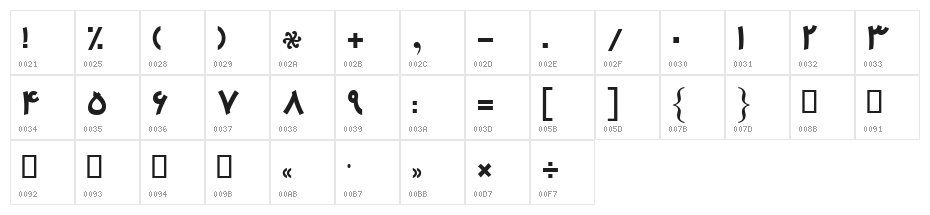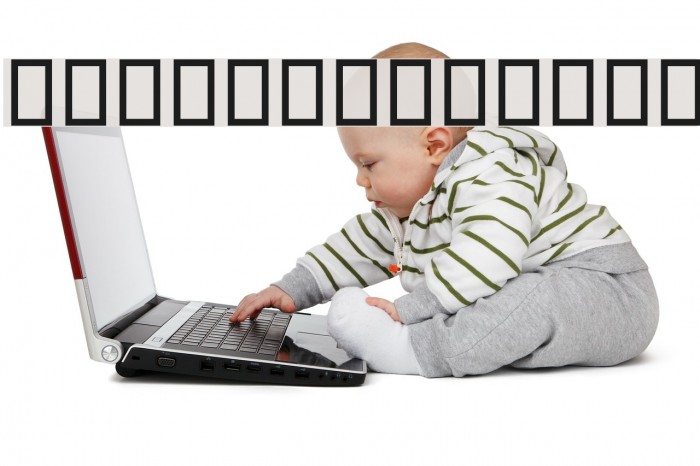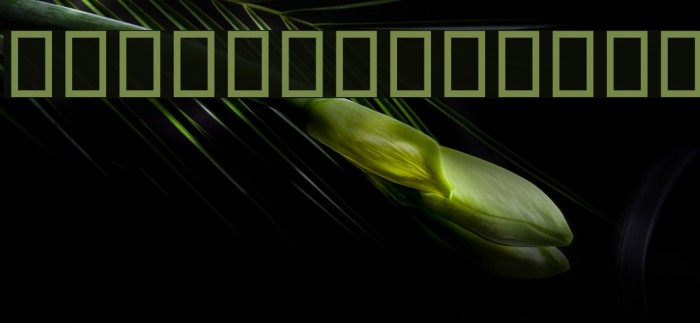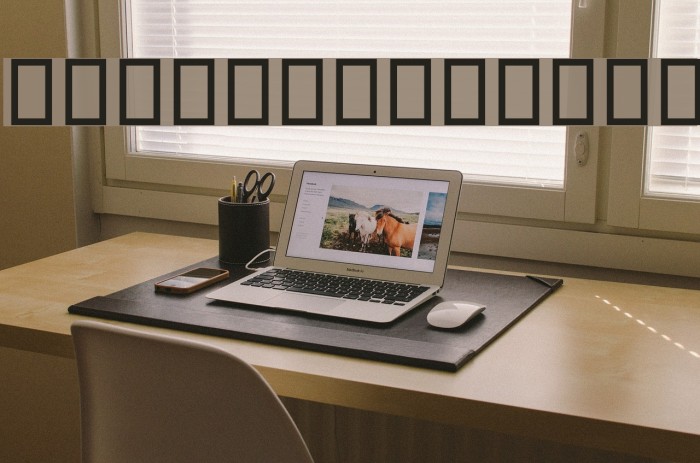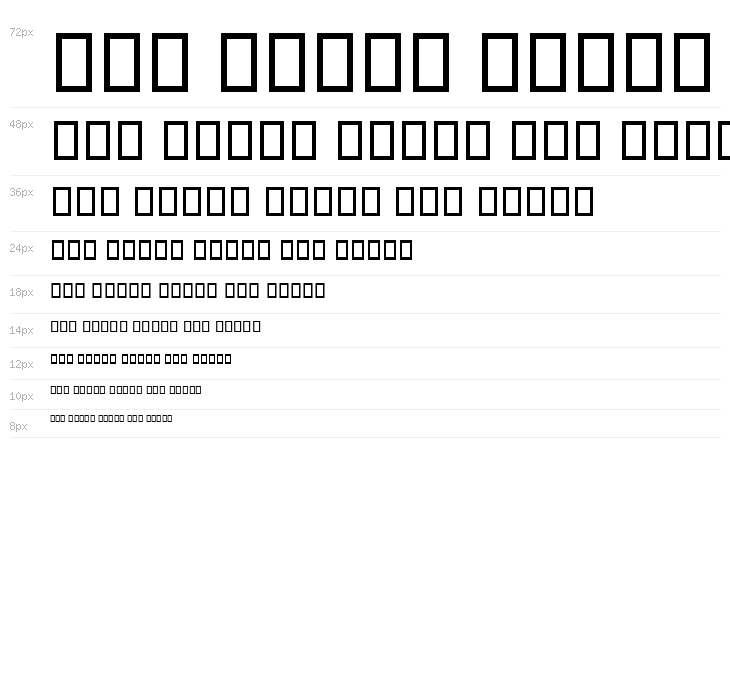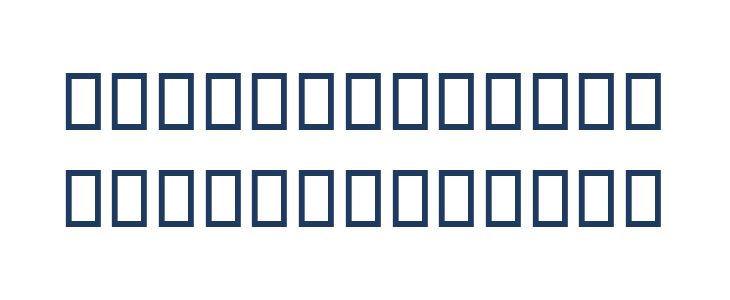
Mehr Font
Mehr Description
This font features a distinctive and bold design with a unique character set that includes stylized numerals and special symbols. The characters exhibit a playful and artistic flair, with varying stroke thicknesses that add a dynamic and eye-catching quality. The font's style is reminiscent of ancient scripts, offering a sense of mystery and cultural richness. Its decorative nature makes it suitable for projects that aim to convey a sense of tradition or historical depth. The font's overall appearance is both striking and memorable, making it a great choice for creative and thematic designs.
گالری فانت فارسی پژوهش آريانا - only compatible with Farsi and Arabic